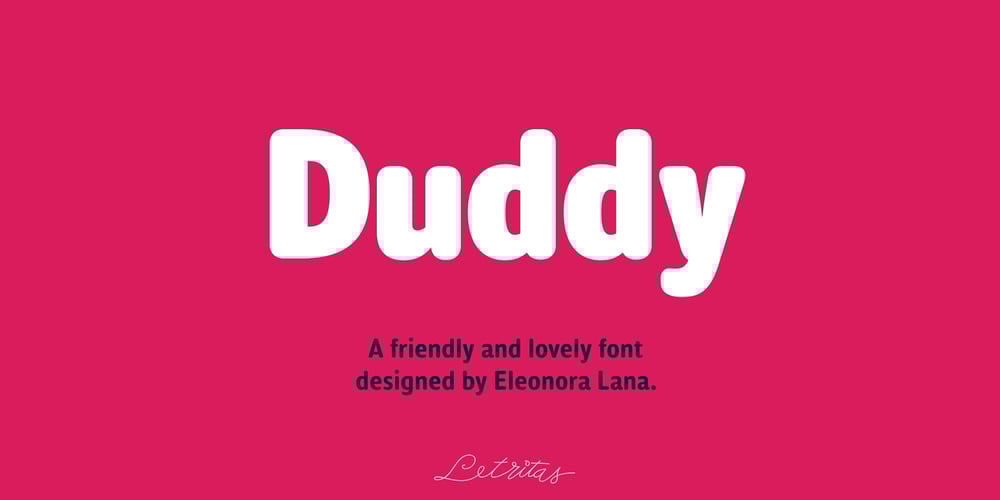
Duddy Font Family was designed by Eleonora Lana and published by Letritas. Duddy contains 18 styles and family package options. Duddy is a “friendly” sans-serif typography designed by Eleonora Lana and the Letritas team. The shape of Duddy was created based on sketches that looked after carrying the concept of kindness as far as possible, keeping always in mind the readability and functionality of the font. In the stage of brainstorming, the team started listing things that were friendly to the touch or sight, such as a candy gum, or marshmallow, to become acquainted with the intended goal. Although slowly, as the letters were being created, the objects associated with the forms were not satisfactory, since when forming words a special personality of its own appeared. By reconceptualizing everything, the personality of the letter the team wanted to work with had to be redefined. Thus it went from “caramel” to “teddy bear”, from “teddy bear” to “puppy” and from “puppy” to “dolphin”. And Duddy is the perfect name for a dolphin. Duddy was a sound idea: friendly, intelligent, social. Once the concept was nailed, the design of graceful and “soft” shapes started. Almost chewable, almost huggable, as if composing words was a game. Duddy has a slanted version with “real italics”. These italics are slightly more condensed than the regular version, in order to give it a different text texture. The typeface has 9 weights, ranging from “thin” to “heavy”, and two versions: “regular” and “italic”. Its 18 files contain 729 characters with ligatures, alternates, small caps, oldstyle and tabular numbers, fractions, case sensitive, and unicase figures. It supports 219 Latin-based languages, spanning through 212 different countries. Duddy supports this languages: Abenaki, Afaan Oromo, Afar, Afrikaans, Albanian, Alsatian, Amis, Anuta, Aragonese, Aranese, Aromanian, Arrernte, Arvanitic (Latin), Asturian, Atayal, Aymara, Bashkir (Latin), Basque, Bemba, Bikol, Bislama, Bosnian, Breton, Cape Verdean Creole, Catalan, Cebuano, Chamorro, Chavacano, Chichewa, Chickasaw, Cimbrian, Cofán, Corsican Creek,Crimean Tatar (Latin),Croatian, Czech, Dawan, Delaware, Dholuo, Drehu, Dutch, English, Estonian, Faroese, Fijian Filipino, Finnish, Folkspraak, French, Frisian, Friulian, Gagauz (Latin), Galician, Ganda, Genoese, German, Gikuyu, Gooniyandi, Greenlandic (Kalaallisut)Guadeloupean, Creole, Gwich’in, Haitian, Creole, Hän, Hawaiian, Hiligaynon, Hopi, Hotc?k (Latin), Hungarian, Icelandic, Ido, IgboI, locano, Indonesian, Interglossa, Interlingua, Irish, Istro-Romanian, Italian, Jamaican, Javanese (Latin), Jèrriais, Kala Lagaw Ya, Kapampangan (Latin), Kaqchikel, Karakalpak (Latin), Karelian (Latin), Kashubian, Kikongo, Kinyarwanda, Kiribati, Kirundi, Klingon, Ladin, Latin, Latino sine Flexione, Latvian, Lithuanian, Lojban, Lombard, Low Saxon, Luxembourgish, Maasai, Makhuwa, Malay, Maltese, Manx, M?ori, Marquesan, Megleno-Romanian, Meriam Mir, Mirandese, Mohawk, Moldovan, Montagnais, Montenegrin, Murrinh-Patha, Nagamese Creole, Ndebele, Neapolitan, Ngiyambaa, Niuean, Noongar, Norwegian, Novial, Occidental, Occitan, Old Icelandic, Old Norse, Oshiwambo, Ossetian (Latin), Palauan, Papiamento, Piedmontese, Polish, Portuguese, Potawatomi, Q’eqchi’, Quechua, Rarotongan, Romanian, Romansh, Rotokas, Sami (Inari Sami), Sami (Lule Sami), Sami (Northern Sami), Sami (Southern Sami), Samoan, Sango, Saramaccan, Sardinian, Scottish Gaelic, Serbian (Latin), Seri, Seychellois Creole, Shawnee, Shona, Sicilian, Silesian, Slovak, Slovenian, Slovio (Latin), Somali, Sorbian (Lower Sorbian), Sorbian (Upper Sorbian), Sotho (Northern), Sotho (Southern), Spanish, Sranan, Sundanese (Latin), Swahili, Swazi, Swedish, Tagalog, Tahitian, Tetum, Tok Pisin, Tokelauan, Tongan, Tshiluba, Tsonga, Tswana, Tumbuka, Turkish, Turkmen (Latin), Tuvaluan, Tzotzil, Uzbek (Latin), Venetian, Vepsian, Volapük, Võro, Wallisian, Walloon, Waray-Waray, Warlpiri, Wayuu, Welsh, Wik-Mungkan, Wiradjuri, Wolof, Xavante, Xhosa, Yapese, Yindjibarndi, Zapotec, Zulu, Zuni.